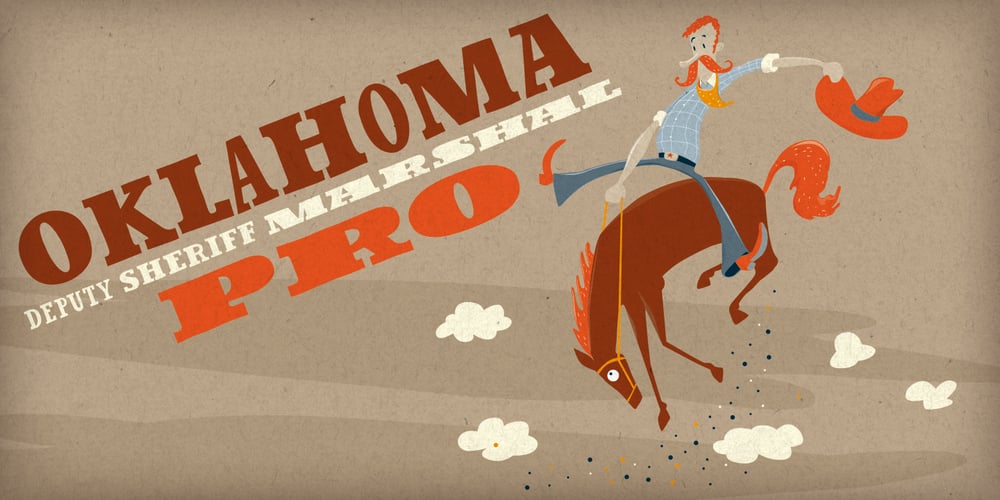
Oklahoma Pro Font Family was designed by Ingo Krepinsky, Gunnar Link and published by Die Typonauten. Oklahoma Pro contains 4 styles and family package options. A large update of a successful type face: Oklahoma. There is a new style (Oklahoma Pro Marshal) and a cool Open Type Feature. Alternate characters and an effect – we call it “dancing baseline”.